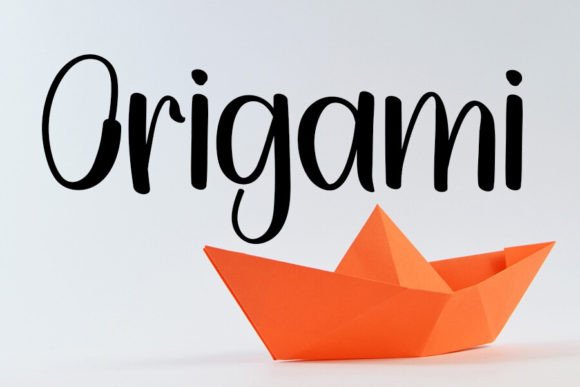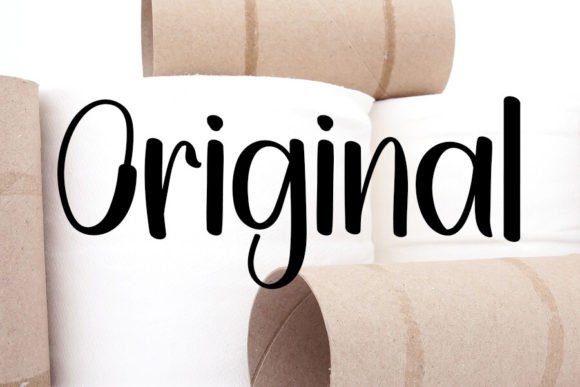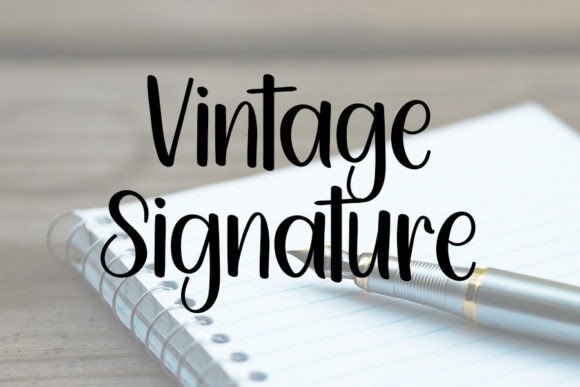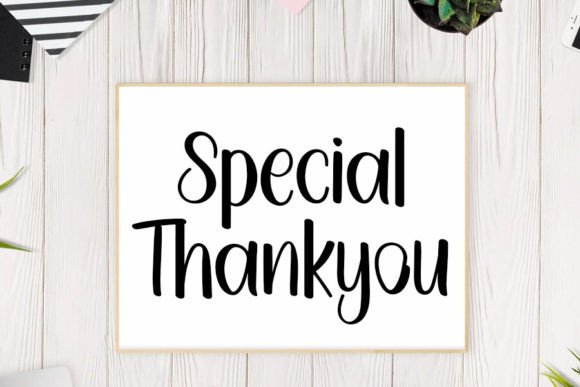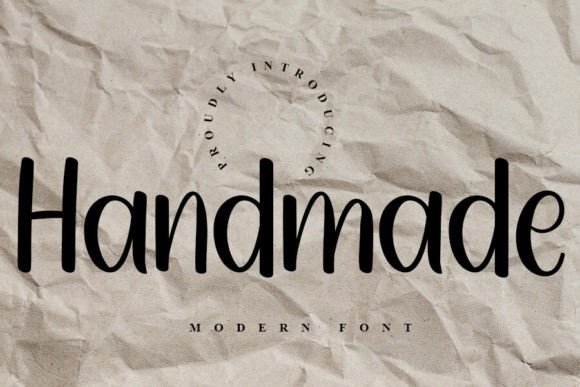
Introducing Handmade Font: Elevate Your Designs with a Fresh and Beautiful Typeface
In the world of design, typography plays a crucial role in conveying messages, expressing creativity, and building brand identities. For designers, crafters, and businesses looking to make a lasting impression, a unique and visually appealing font can make all the difference. This is where the Handmade Font comes into play – a fresh, beautiful, and versatile typeface designed to take your designs to the next level.
What Makes Handmade Font Special?
Handmade Font is a carefully crafted typeface that exudes a sense of elegance, simplicity, and uniqueness. Its fresh and beautiful design makes it an ideal choice for various design purposes, including YouTube banners, cover logo mockups, wedding invitations, ID cards, flyers, and crafts. Whether you’re a professional designer or a small business owner, this font can help you create stunning visual content that captures the attention of your audience.
Key Features of Handmade Font
- Fresh and Beautiful Design: Handmade Font boasts a modern and visually appealing design that will elevate your designs and make them stand out.
- Versatility: This font is perfect for a wide range of design applications, from digital projects like YouTube banners and social media graphics to print materials like wedding invitations and ID cards.
- Simplicity and Uniqueness: Handmade Font strikes the perfect balance between simplicity and uniqueness, making it easy to read and understand while also conveying a sense of individuality.
How Handmade Font Can Benefit Your Business
- Establish a Strong Brand Identity: A unique and consistent visual identity is crucial for building a strong brand. Handmade Font can help you create a distinctive look that sets your business apart from the competition.
- Increase Engagement: Visually appealing designs can capture the attention of your audience and increase engagement. With Handmade Font, you can create stunning graphics that draw people in and keep them interested.
- Stand Out in a Crowded Market: In today’s competitive market, it’s essential to find ways to differentiate your business. Handmade Font can help you create unique and memorable designs that set you apart from the crowd.
Tips for Using Handmade Font Effectively
To get the most out of Handmade Font, here are some tips to keep in mind:
- Use it for Headings and Titles: Handmade Font is perfect for headings and titles, where you want to make a bold statement and grab attention.
- Experiment with Different Colors and Textures: Don’t be afraid to try out different colors and textures to add depth and interest to your designs.
- Pair it with Other Fonts: Handmade Font can be paired with other fonts to create a unique and visually appealing combination. Experiment with different pairings to find the one that works best for your design.